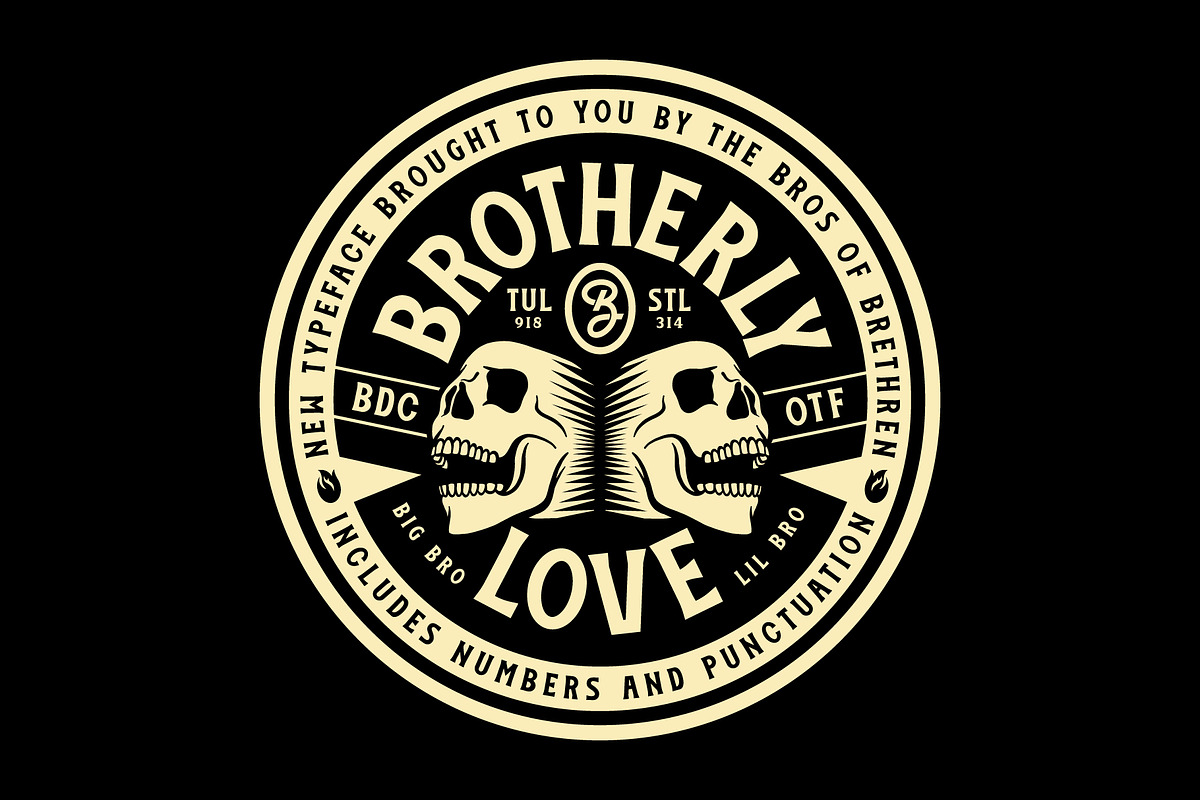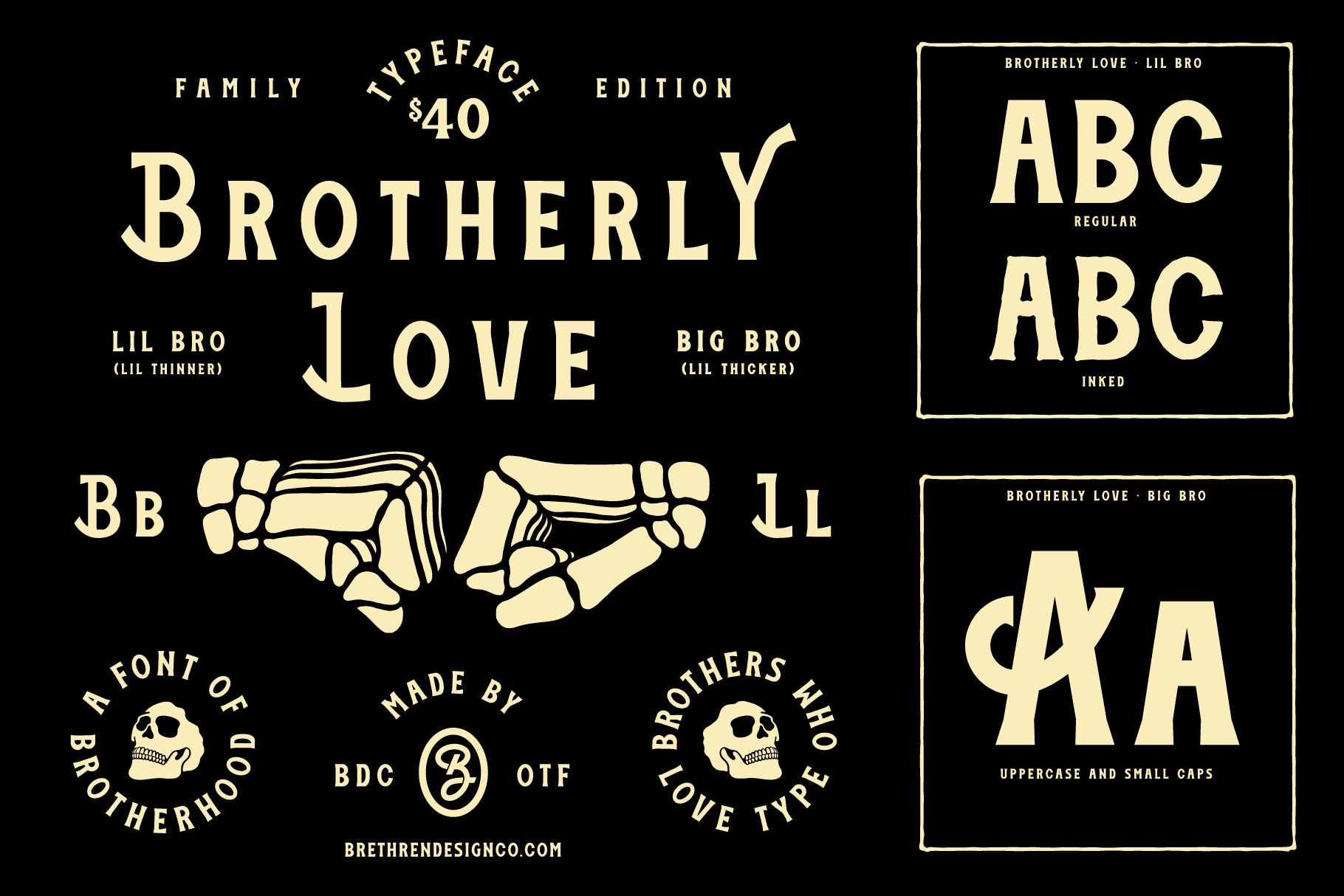
Brotherly Love Font Family
A large classy font family! Includes 4 styles total. Lil Bro is thinner and comes in clean and inked and Big Bro is a little thicker and also comes in Clean and Inked. There are uppercase and lowercase alternates, numbers and punctuation included.